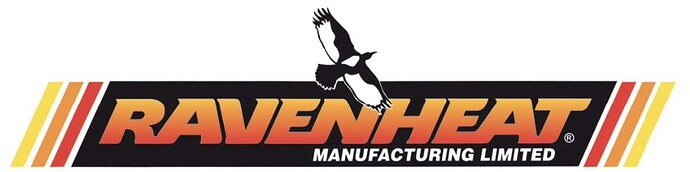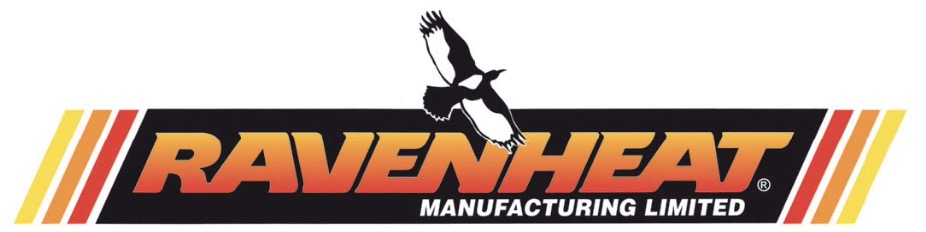
I’ve looked in all the usual places - and some unusual ones. Coming up empty.
It’s not Crilee …
Hmm … I immediately thought it was Steel Racer .. but it’s not exactly that either.
Yeah … no …
I have a hunch it might be based on an existing typeface altered significantly by someone not especially good at type design.
The R is a mismatch with the other letters. The V is customized to fit tightly between an A and an E. The E’s are oddly narrower than the other letters. The slant angle of “MANUFACTURING LIMITED” doesn’t match the slant of everything else.
In other words, the typography appears to have been customized by someone who was not quite able to get it all the way there.